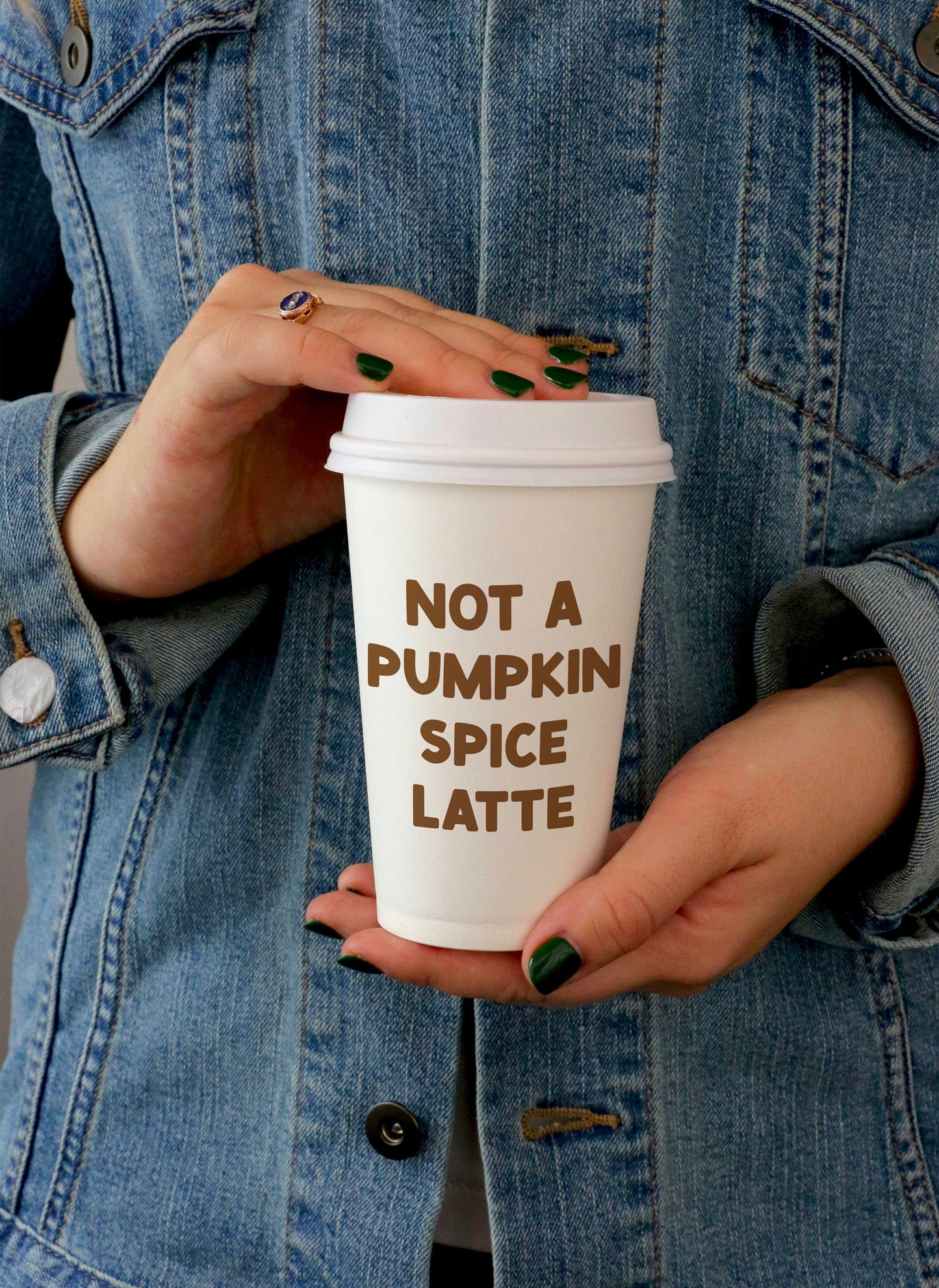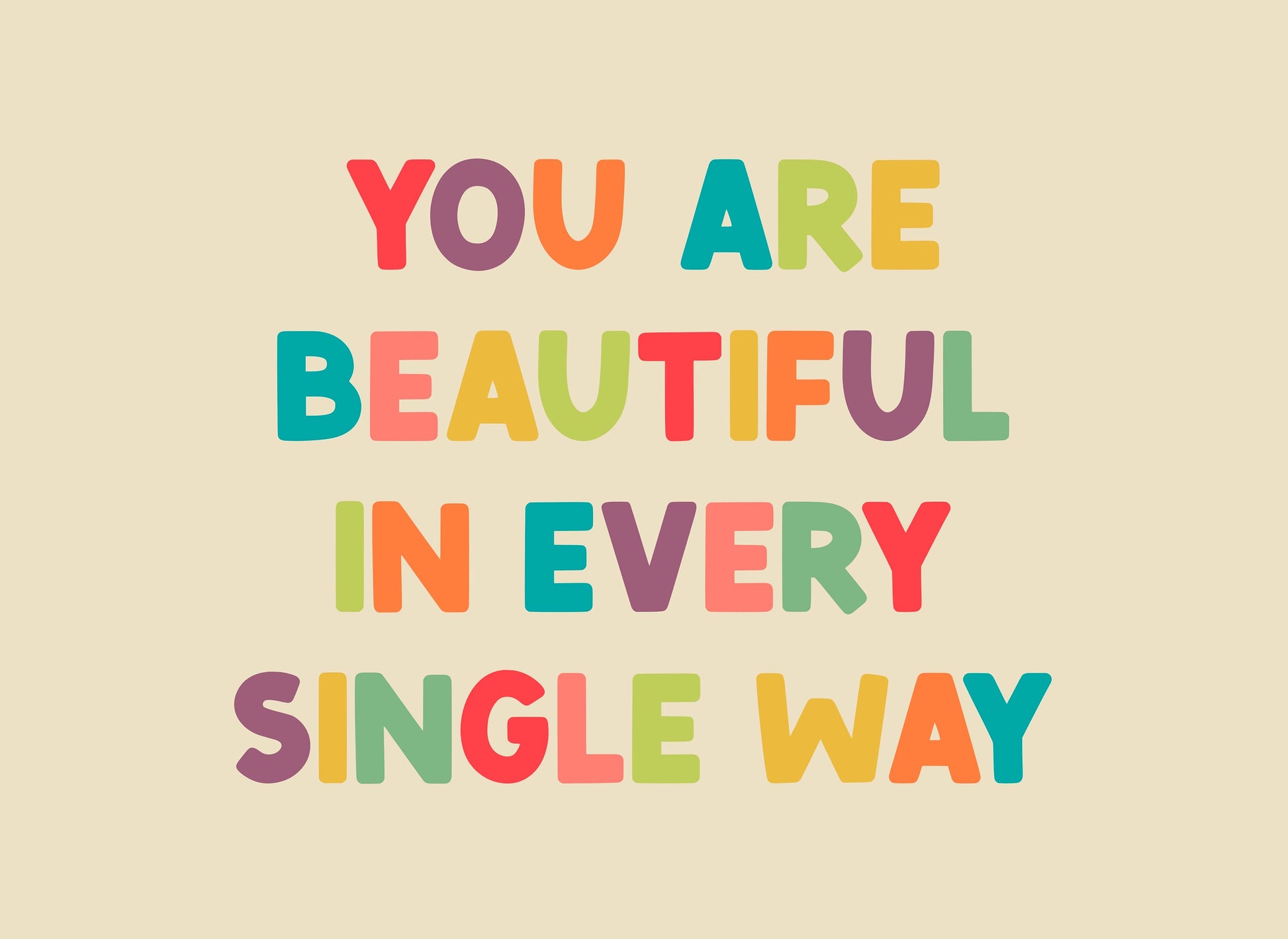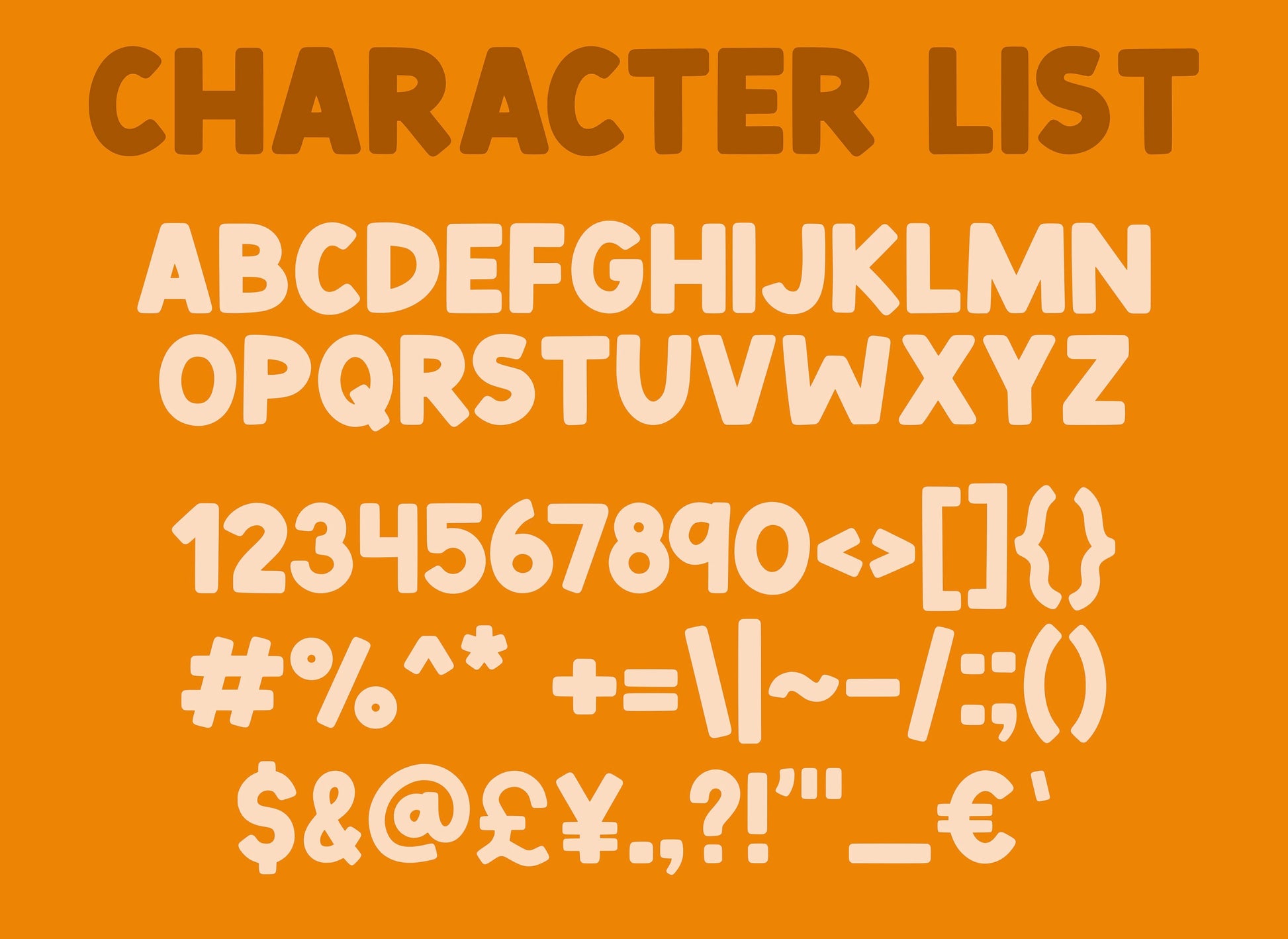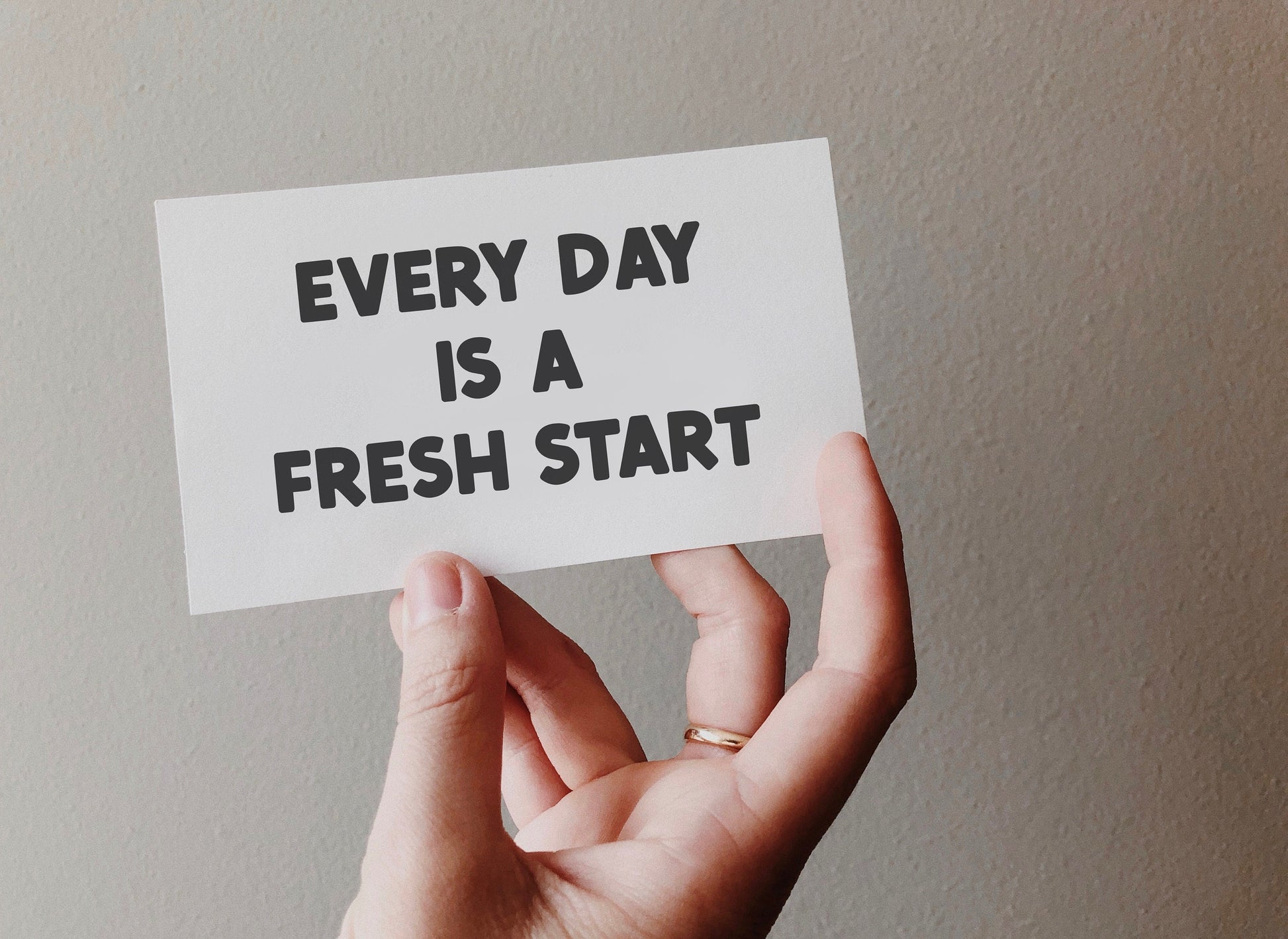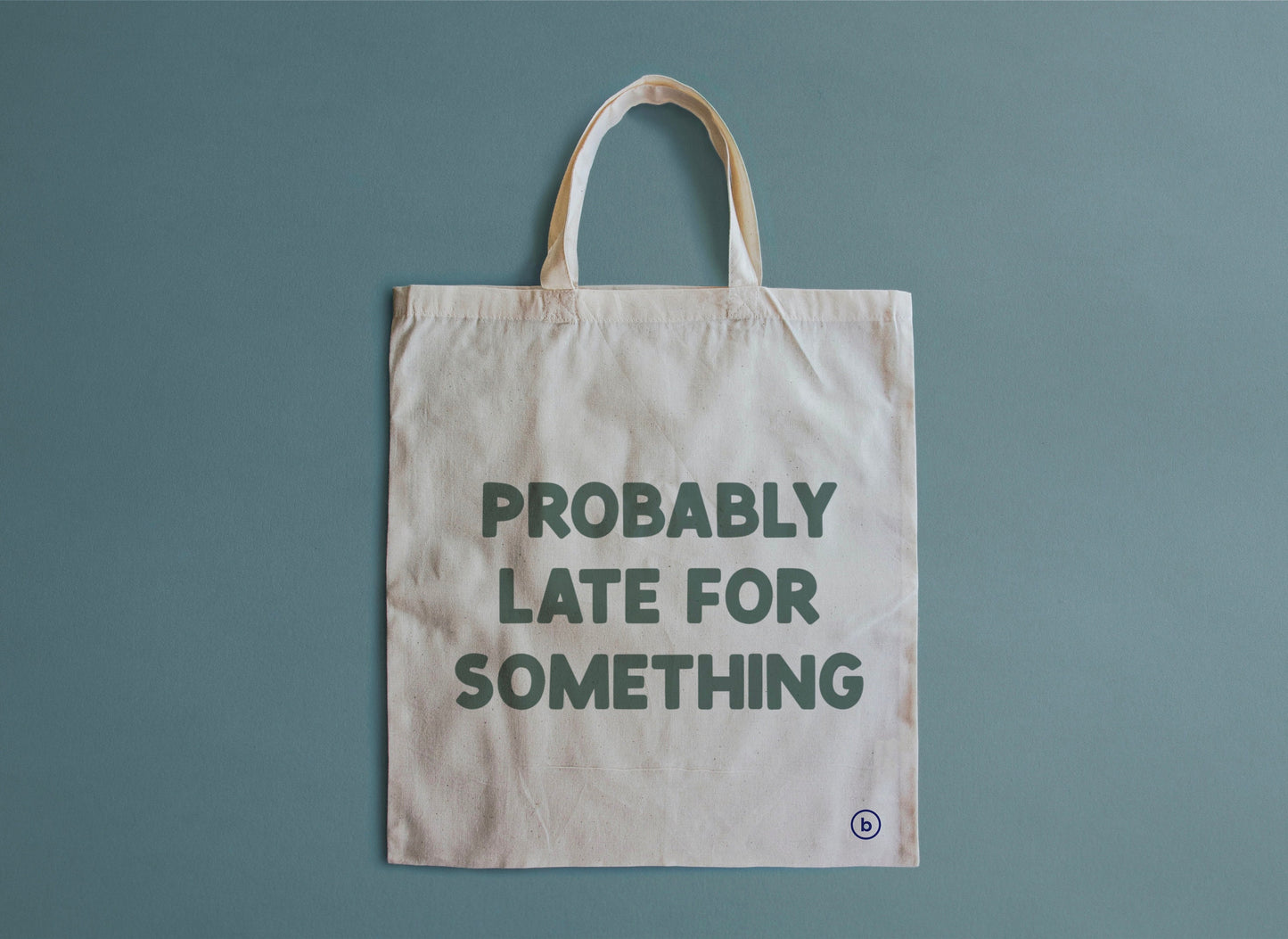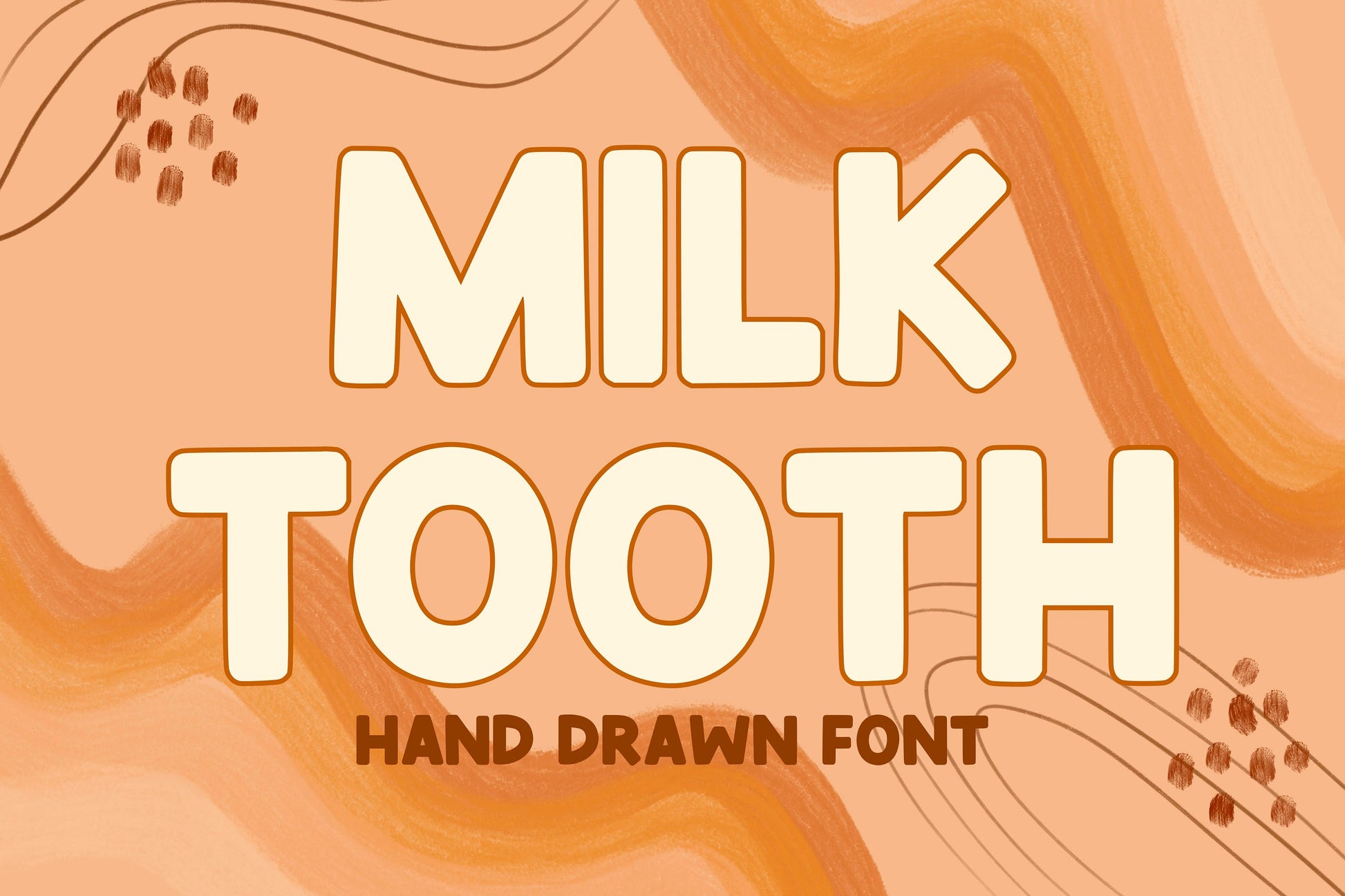
Milk Tooth Hand Drawn Font
Introducing the Milk Tooth handwritten/hand drawn font! If you're looking to add some bold, playful lettering to your awesome creations, look no farther. This unique, squared monoline font with slightly rounded corners will add a fun, cheerful, handmade flare to your design! This font is perfect for any project that calls for a quirky & eye-catching font, such as: posters, t-shirts, stickers, quotes, book covers, brochures, flyers, merchandise, etc.